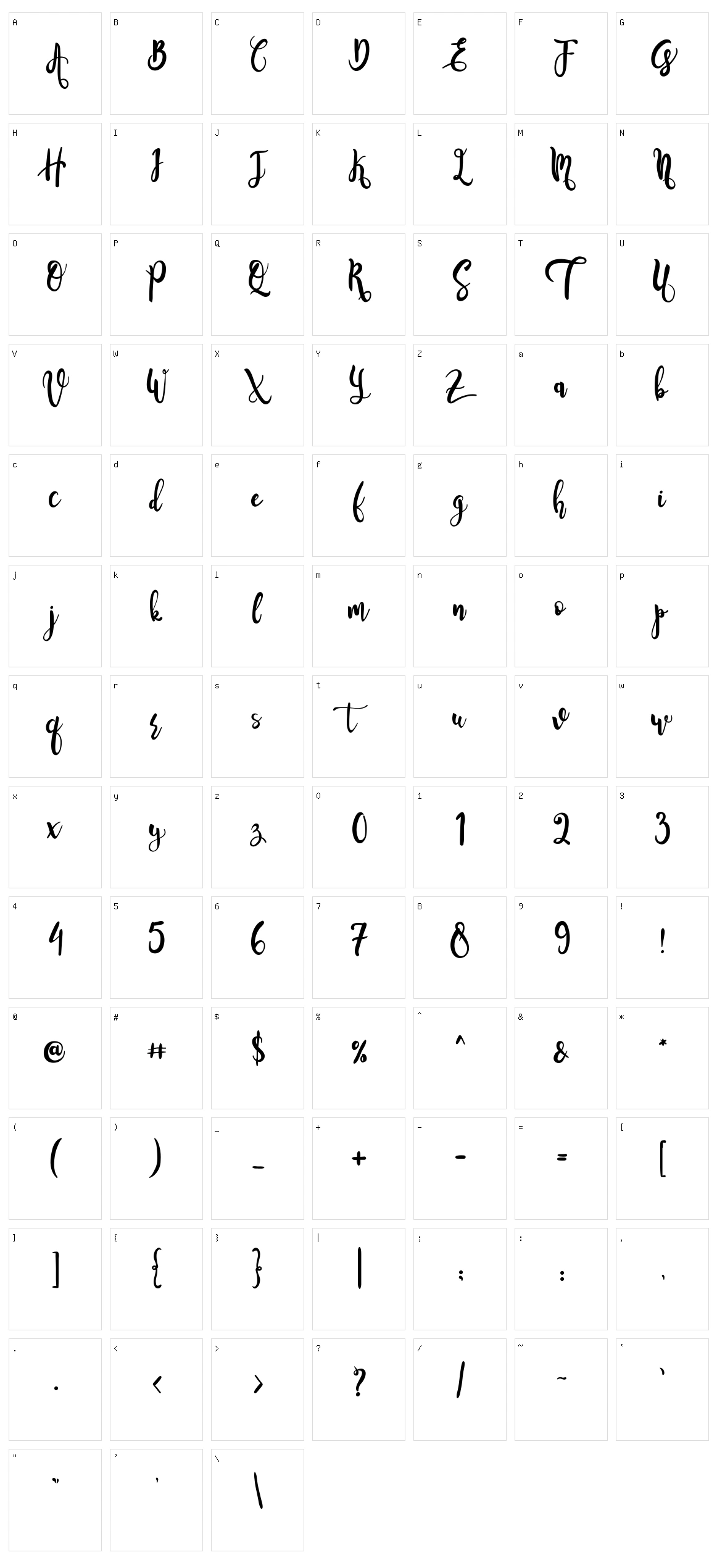
Seventeen Script is a sweet font, fancy and fabulous.Can used for various purposes. such as titles, labels, newsletters, posters, signatures, logos, correspondence, wedding invitations, letterhead, signage, badges, etc.
Seventeen Script features 377 Glyphs with Alternate character (Start & End character ) and International support for most Western Languages is included.